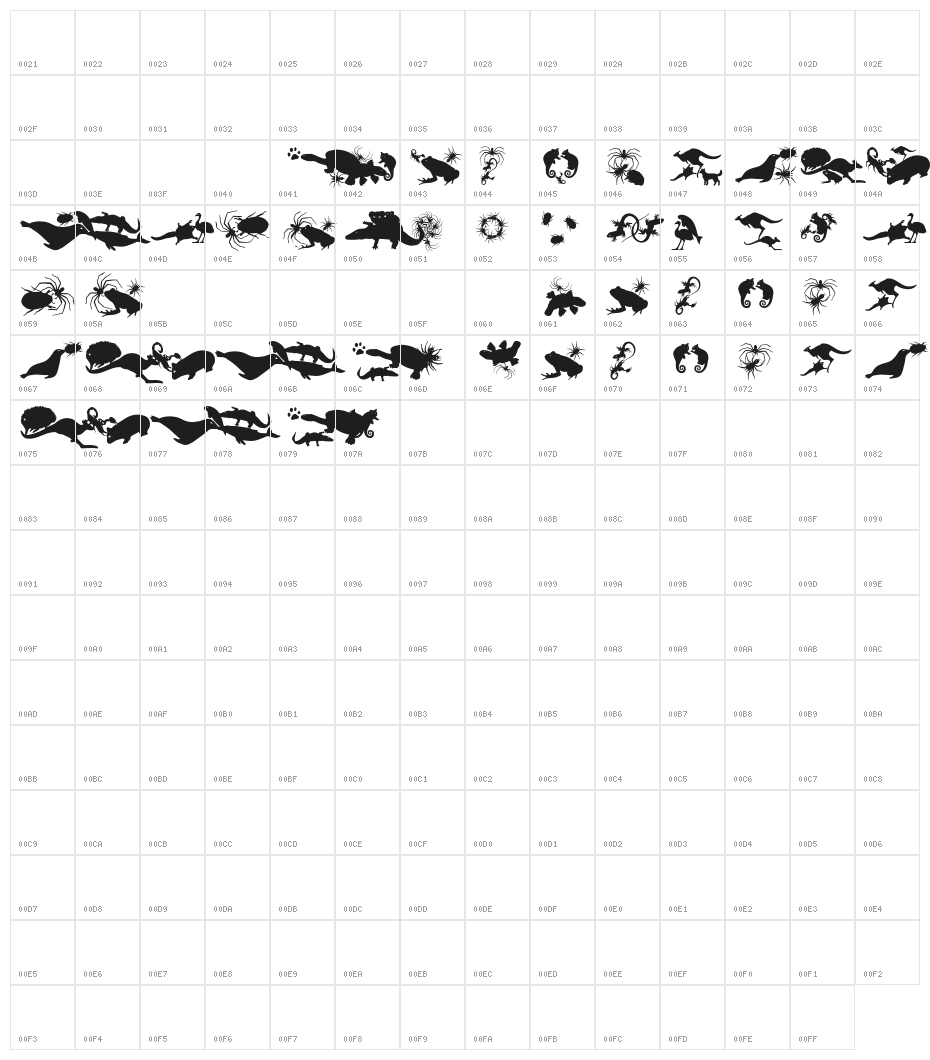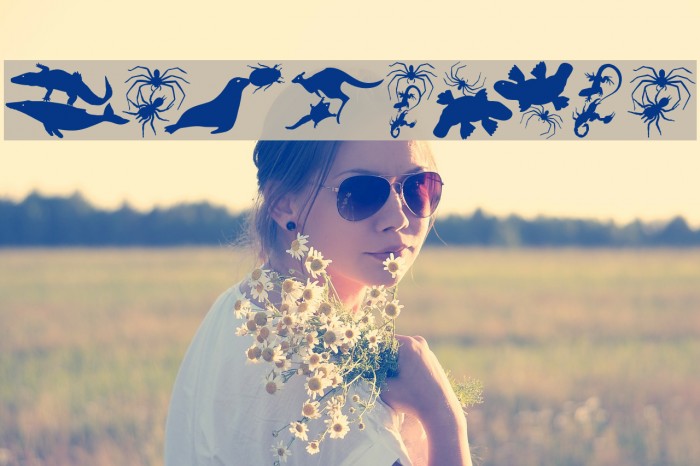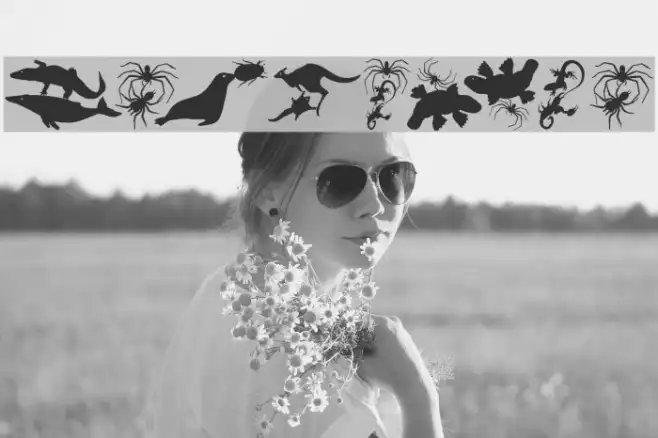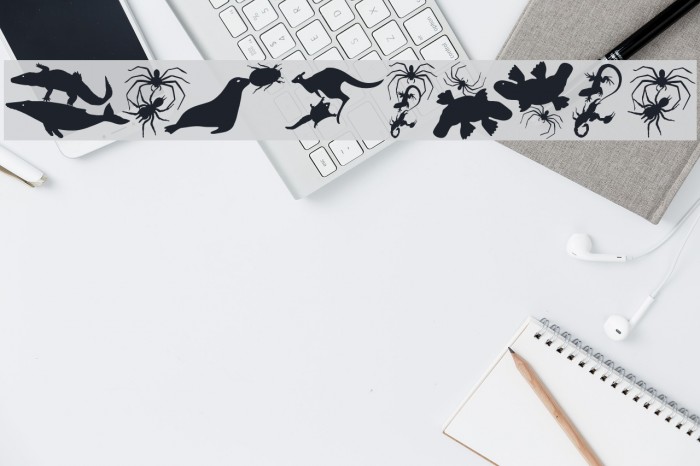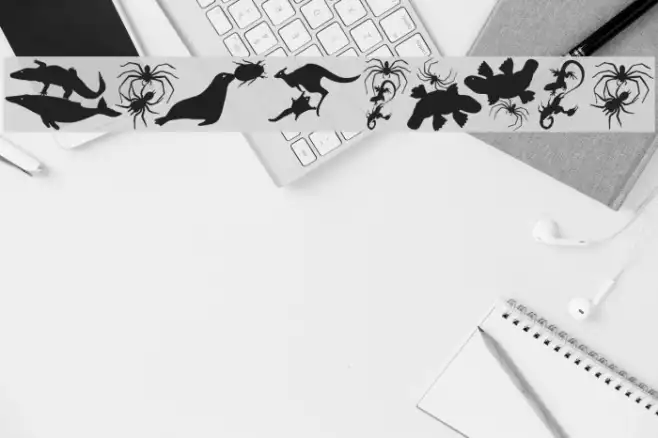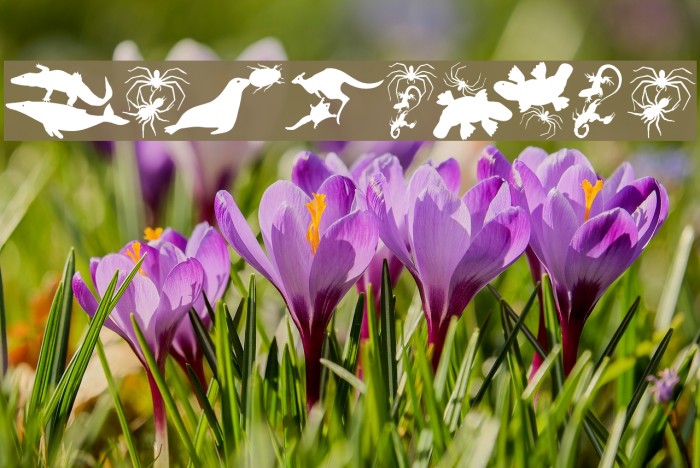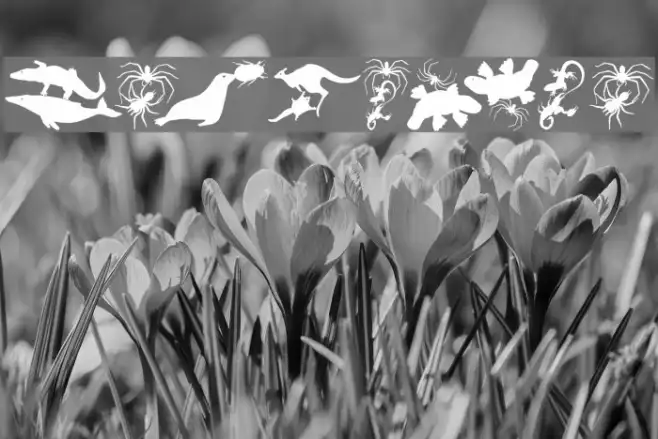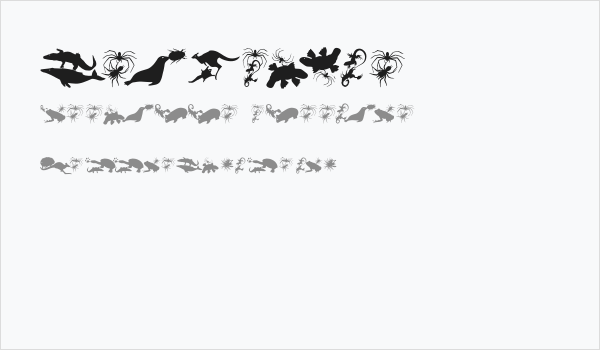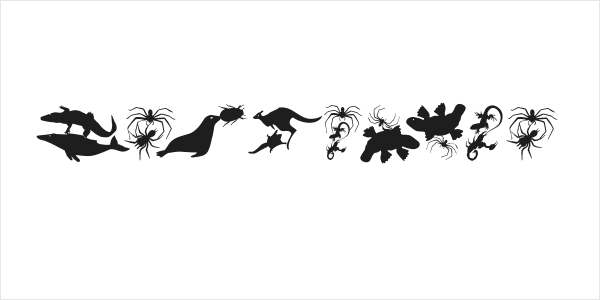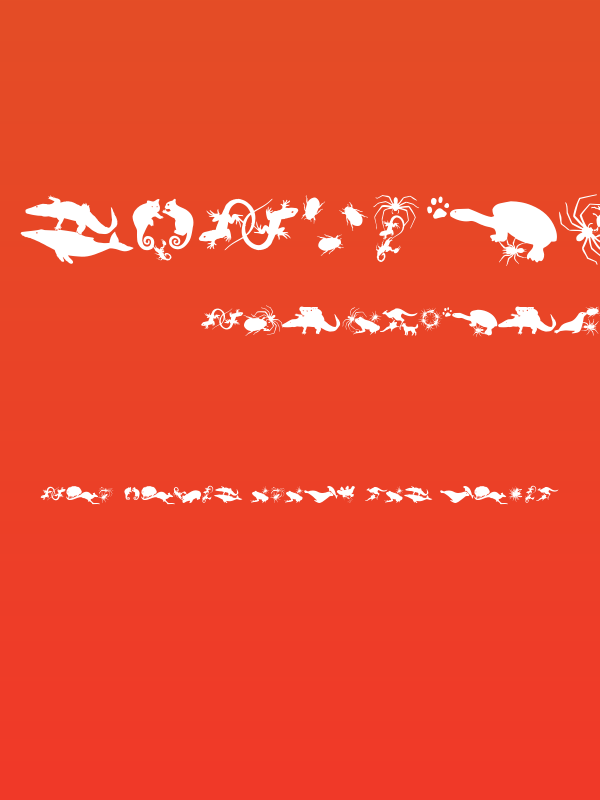
LetsDance Font
LetsDance Description
A decorative dingbat font featuring playful silhouettes of various animals and whimsical shapes, each character represented by a unique creature or abstract flourish. The glyphs are bold and filled, with high contrast and a lively, animated feel.
| Overall Style | Decorative, Playful |
| Use Case | Decorative elements, Borders, Themed graphics |
| Proposed Projects | ChildrenΓ’β¬β’s books, educational materials, party invitations, animal-themed posters, decorative borders. |